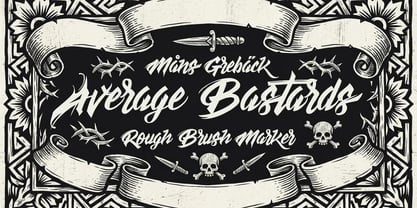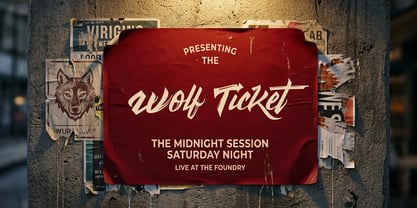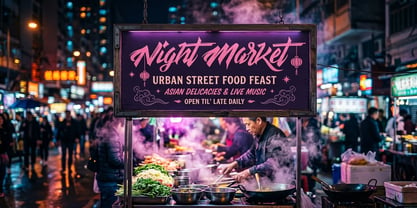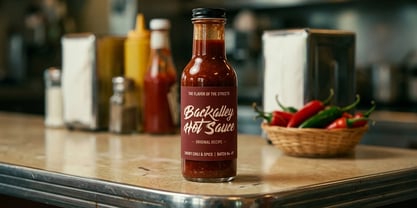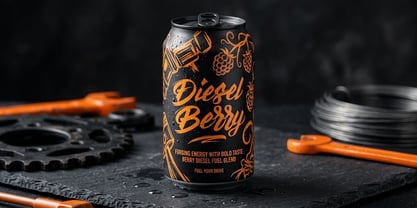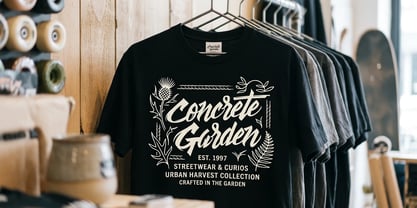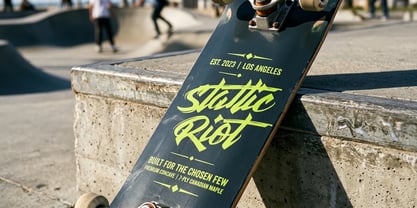
Average Bastards
Average Bastards is a rough, high-energy brush marker with raw, dry-brush edges and an aggressive forward rhythm. It hits like a paint-marker tag on a back-alley wall — built for streetwear, gig posters, skate graphics and anything that needs attitude.
The font is built with advanced functionality and guaranteed top-notch quality, containing stylistic and contextual alternates, ligatures and more automatic and manual features; all to give you full control and customizability.
It has extensive lingual support, covering all Latin-based languages, from North Europa to South Africa, from America to South-East Asia. It contains all characters and symbols you'll ever need, including all punctuation and numbers.